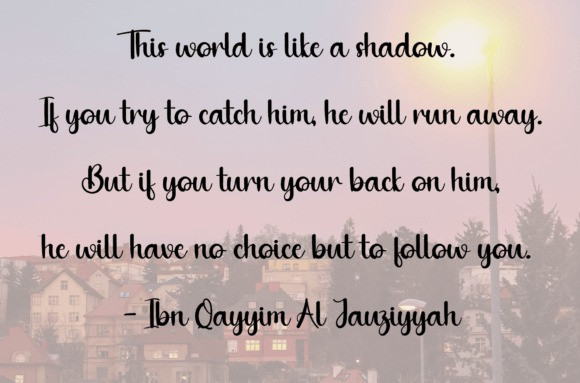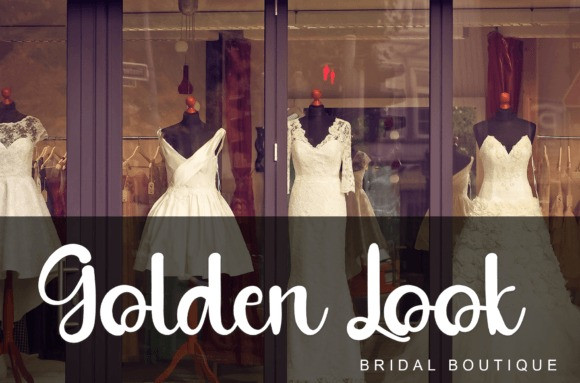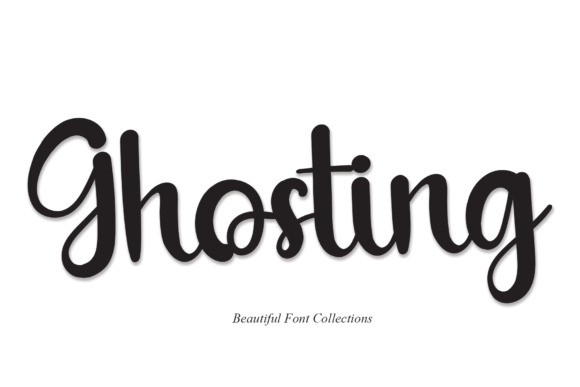
Ghosting Script Font
Ghosting Script Font, is a sweet and friendly handwritten font. Fun and relaxed, this font is ideal for writing wedding invitations, cards, or any other design that might need a lovely touch!